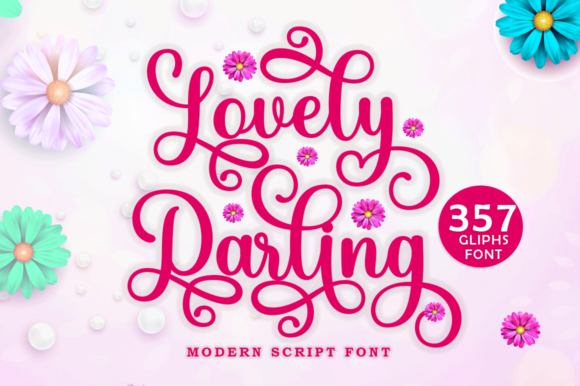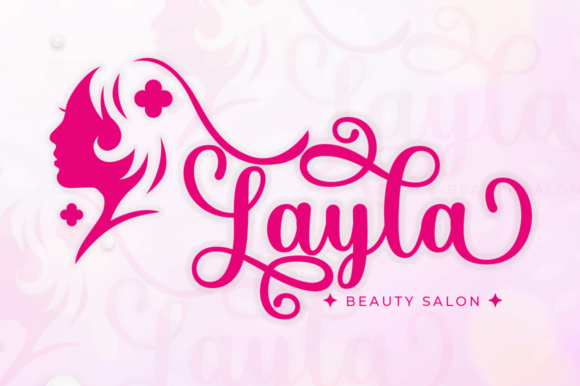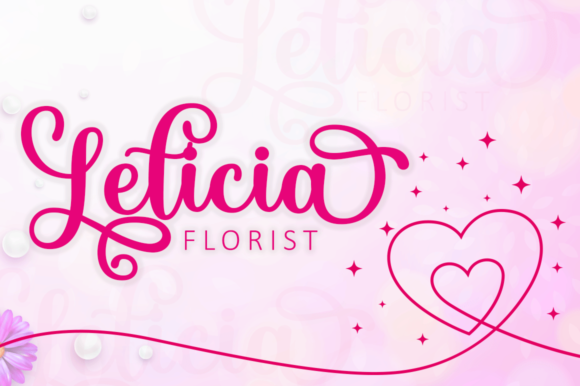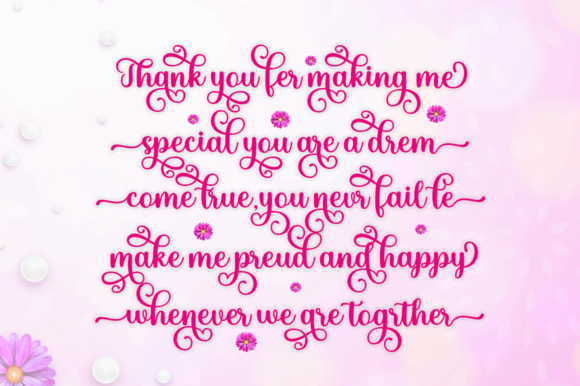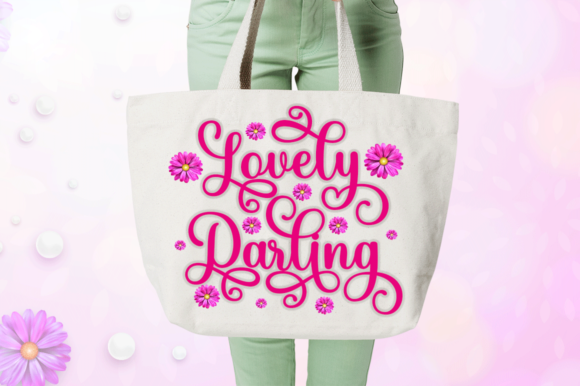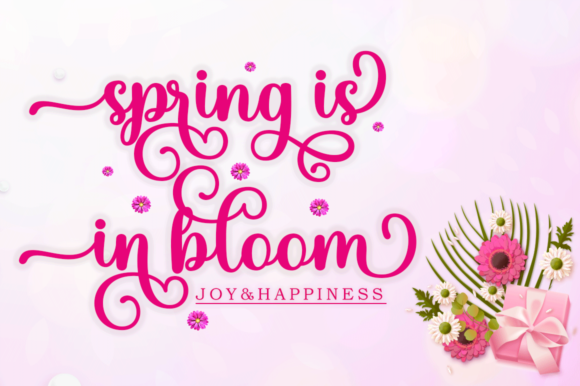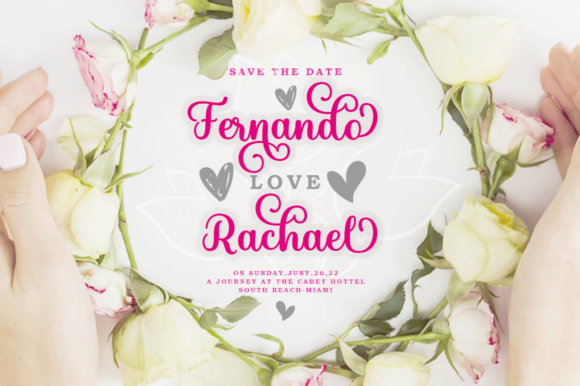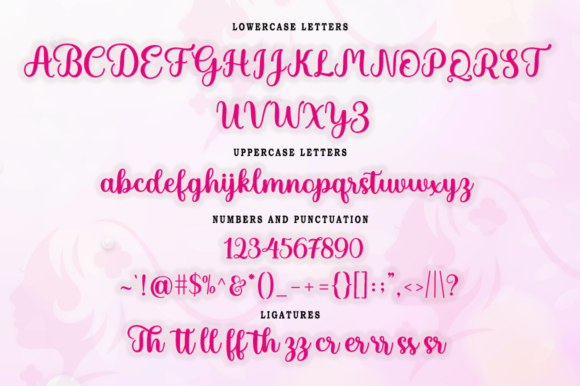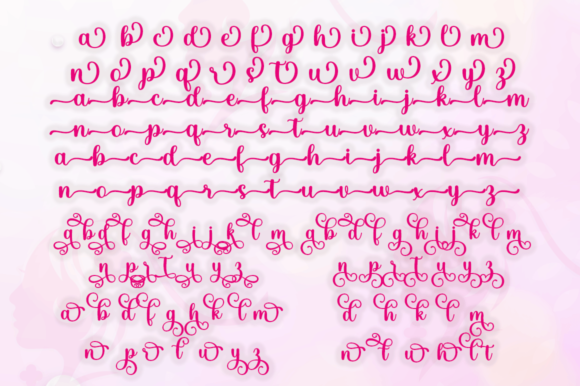
Lovely Darling Font
About Lovely Darling Font
“**Lovely Darling**” presents itself as a sweet and cursive handwritten signature script font, designed to add a touch of joy and romance to a variety of design projects. This gentle font is not only gorgeous but versatile, making it a perfect fit for branding, logos, wedding materials, greeting cards, fashion, lookbooks, marketing promotions, and any occasion where you desire a blend of fancy elegance and casual charm.
The sweetness of “**Lovely Darling**” is evident in its cursive and handwritten signature script style. Each letter flows gracefully, creating a gentle and inviting visual experience. This font is crafted to convey a sense of joy and romance, making it an excellent choice for projects that aim to evoke warm and positive emotions.
The cursive nature of “**Lovely Darling**” adds a level of elegance that is both fancy and approachable. Whether applied to branding or marketing materials, this font brings a touch of sophistication while maintaining a casual and friendly demeanor. It’s a versatile choice that adapts seamlessly to different design contexts, ensuring a consistent and visually pleasing outcome.
Perfectly suited for various applications, “**Lovely Darling**” is an ideal companion for branding and logo design. Its handwritten signature script adds a personal and distinctive touch, making your brand or logo stand out with a blend of elegance and casual charm. The font’s versatility shines through, allowing it to enhance the visual appeal of diverse projects.
The PUA encoding of “**Lovely Darling**” enhances accessibility, enabling easy access to all its amazing glyphs and ligatures. This feature ensures a user-friendly experience, allowing you to explore and utilize the font’s creative potential effortlessly. Unlocking the beauty of this font becomes a seamless process, enabling you to customize your designs with ease.
In essence, “**Lovely Darling**” goes beyond being just a font; it becomes a design element that adds a joyful and romantic touch to your creative endeavors. Whether used for branding, logos, wedding materials, or any project that calls for a fancy yet casual elegance, this sweet and cursive handwritten signature script font stands ready to elevate your designs. Embrace the charm of “**Lovely Darling**” and experience the delightful impact it brings to your visual storytelling.